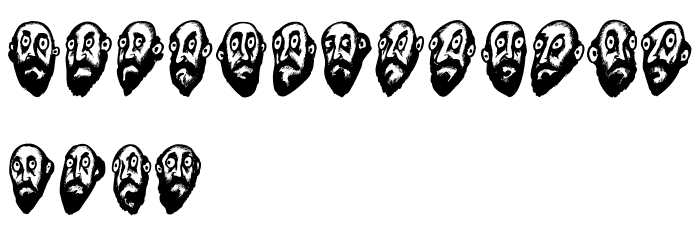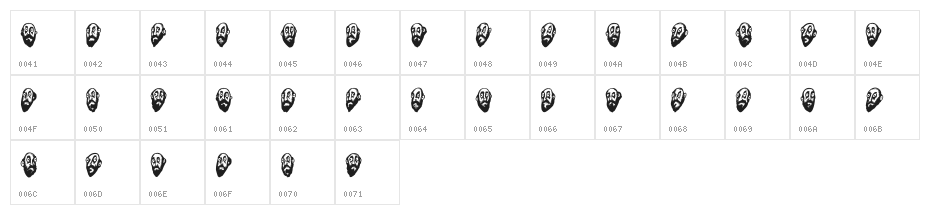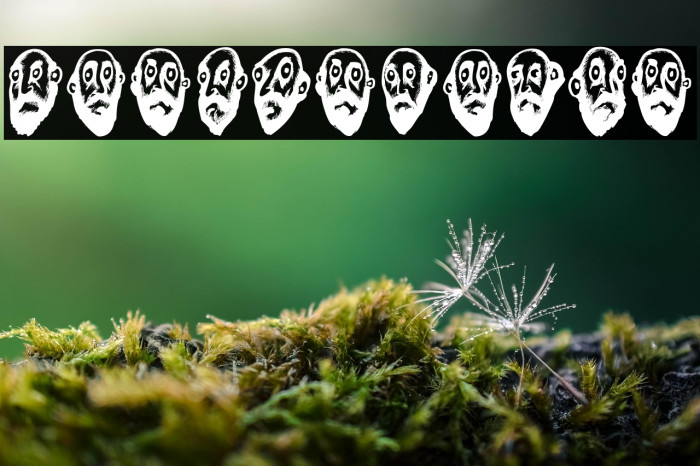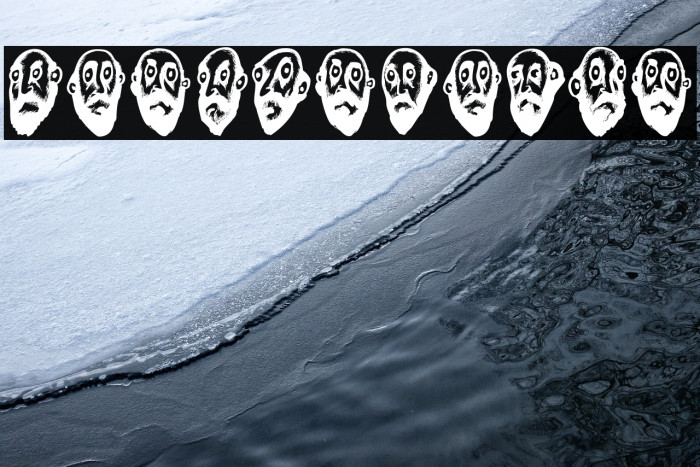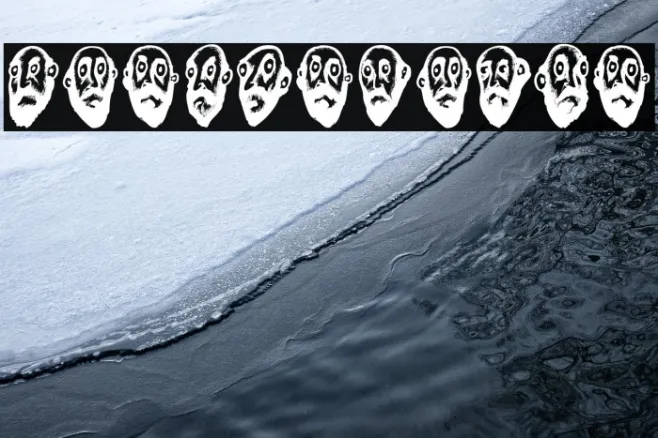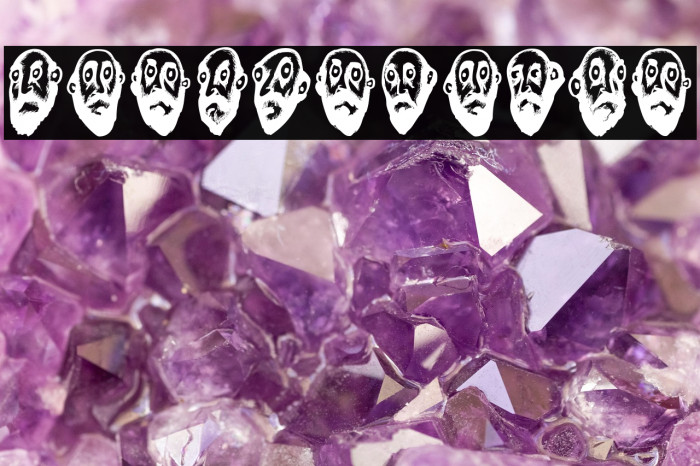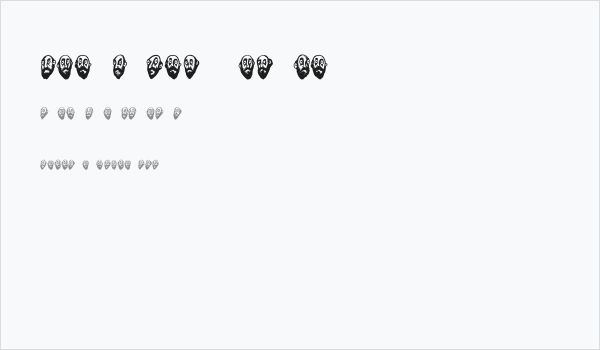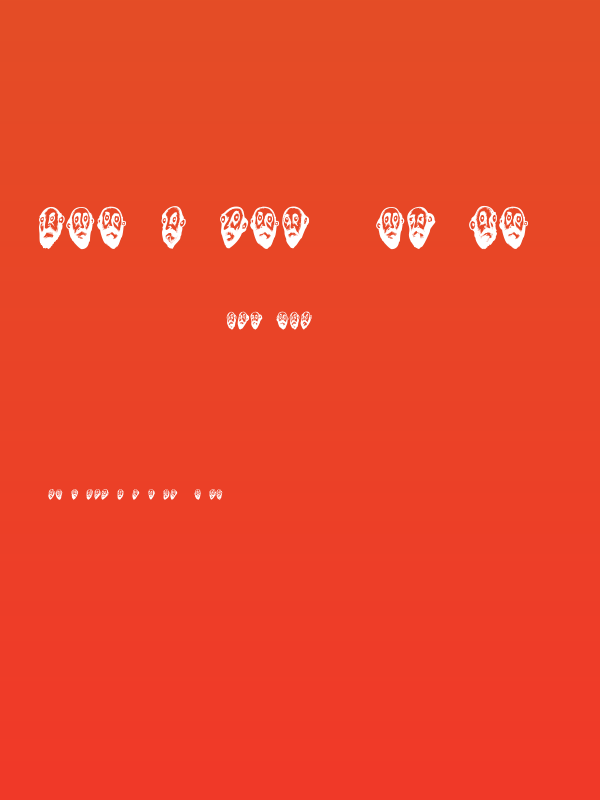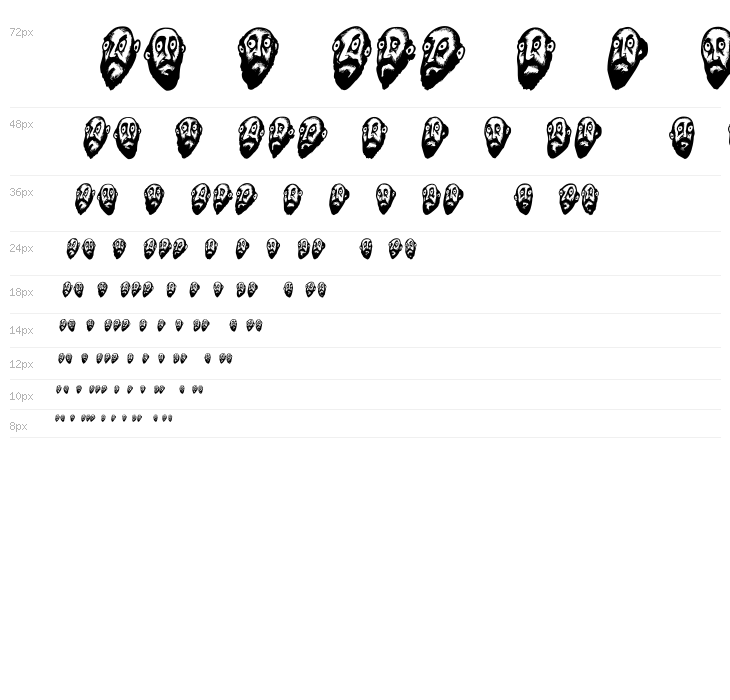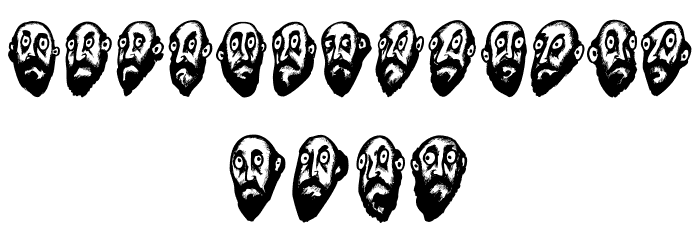
Beard Man Regular Font
Beard Man Regular Description
This unique font features a series of illustrated bearded faces, each with distinct expressions and characteristics. The design is highly decorative, with each character represented by a different face, making it ideal for creative and artistic projects. The faces are detailed with bold outlines and varying textures, adding depth and personality to each character. This font is not suitable for traditional text but serves as a playful and imaginative element for visual storytelling or thematic designs.
| Use Case | Logos, Posters, Artistic projects |
| Proposed Projects | Ideal for comic strips, graphic novels, themed posters, or creative branding projects. |